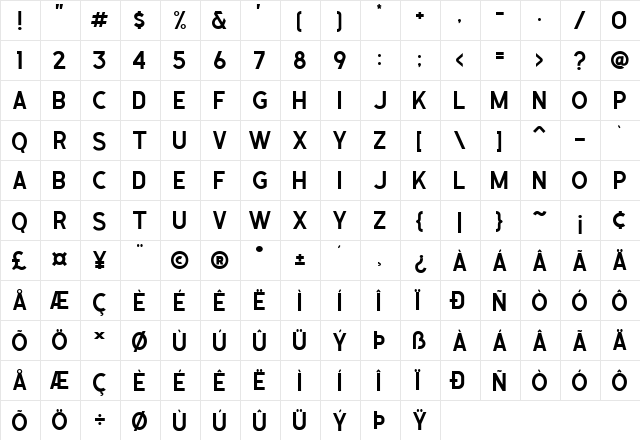
Caligor Sans Clean
| Style | Clean |
| Foundry | Letterhend Studio |
| Designer | Letterhend Studio |
Design Context for Caligor Sans Typeface
Caligor Sans offers clean, dependable letterforms without strong stylistic allegiance, making it a practical choice for designers who need flexibility.